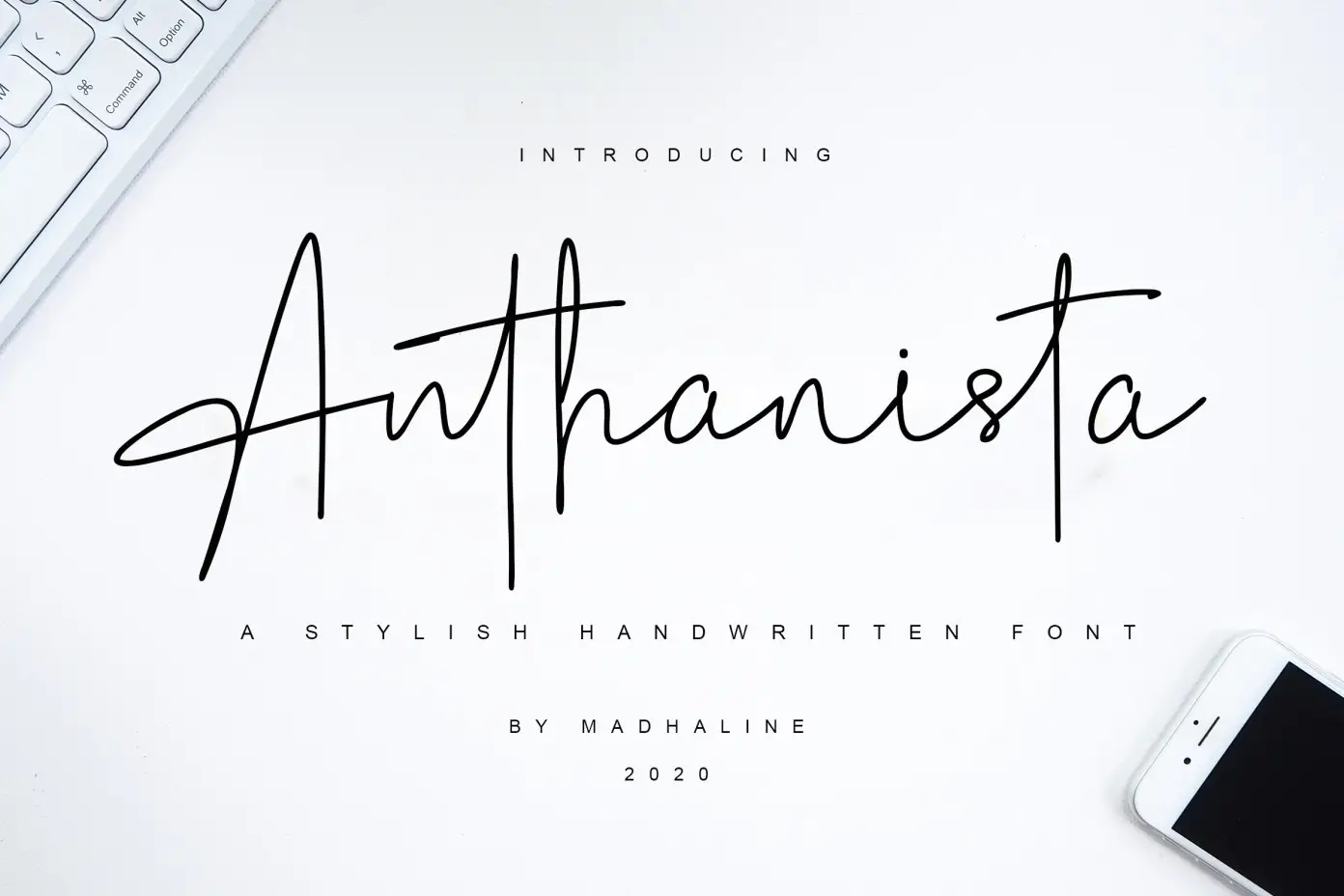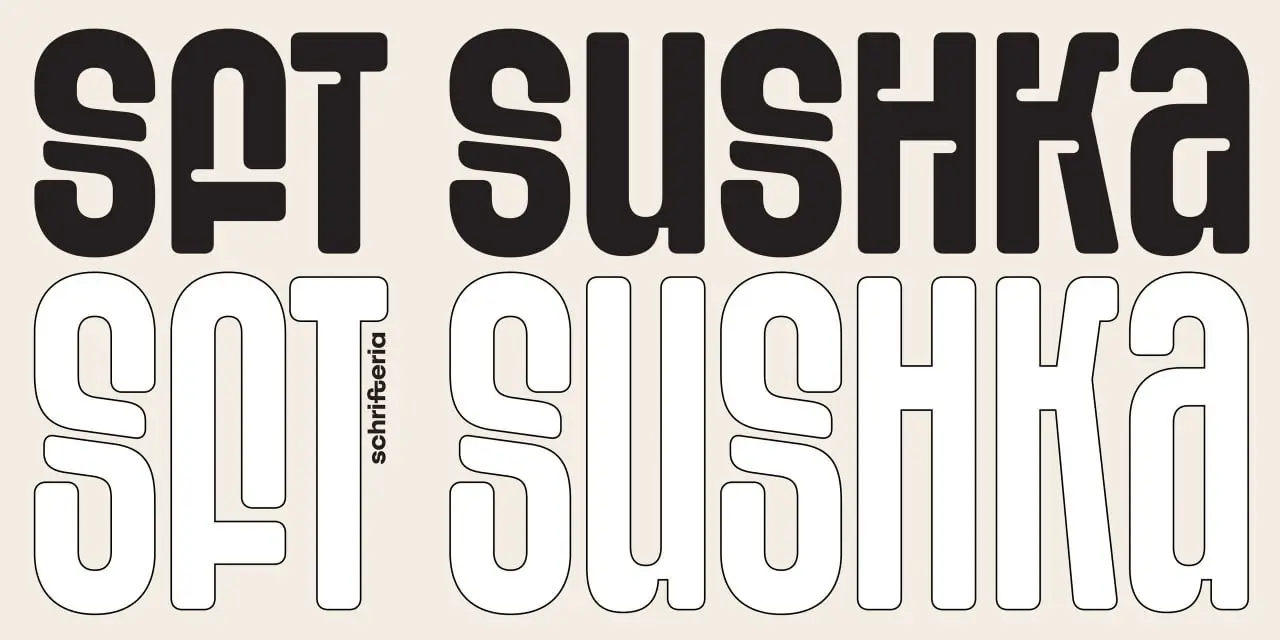
Hey there, creative soul! 👋 Are you ready to level up your design game? We’ve dived deep into the brushespack Collection Part 109 and found 20 absolute gems that will make your next project pop like never before. From elegant scripts to futuristic displays and luxurious serifs, this lineup is pure fuel for your imagination. Let’s jump right in! 🚀🎨
Top 20 Picks from Part 109
Aliresi
Aliresi is a versatile design asset that breathes life into branding, marketing, and digital content. High-res and endlessly customizable — this one’s a game-changer for any artist’s toolkit! ✨🎯
Almondwild Script Font
With flowing curves and pure elegance, Almondwild is the script font of your dreams. Multiple weights and multilingual support make it a versatile stunner for invitations and branding alike! 🌸🖋️
Alivia
Modern, unique, and ultra-sharp — Alivia gives your projects a fresh perspective. These high-res elements are a breeze to tweak, making them perfect for any creative adventure! 🚀🌈
Adelya
Adelya is a versatile digital asset with modern flair and crystal-clear resolution. Perfect for web, print, and anything in between — your next masterpiece starts here! 💎🎨
Abpars – Futuristic Font 2Y5Kx3F
Step into the future with Abpars! This bold, tech-inspired typeface is stylish, modern, and comes with multiple weights — perfect for logos, headlines, and sci-fi vibes! 🤖⚡
Agatha Calligraphy Font
Elegance personified! Agatha’s flowing curves and intricate details make it a star for wedding invites, luxury branding, and sophisticated designs. Multiple weights? Yes please! 🌹🖌️
Anthanista Handwritten Font
Want a personal, human touch? Anthanista delivers natural flow and beautiful curves that feel like real handwriting. Ideal for branding, quotes, and heartfelt projects! ✍️💖
Angry Display Font
Bold, expressive, and impossible to ignore — Angry is a display powerhouse made for headlines and logos that demand attention. Let your work roar! 🔥💥
Amonos Display Font
Make your projects stand out with Amonos! This striking display font is bold, readable at any size, and perfect for branding, web design, and print materials. A true all-rounder! 🏆📢
Aqala Display Font
Aqala is where elegance meets boldness. With its unique character shapes and modern aesthetic, it’s a fantastic choice for headlines, branding, and promotions that need flair! 🎭✨
Albrighton Script Font
Sophisticated cursive at its finest! Albrighton Script oozes elegance and comes with multilingual support and multiple weights — a must-have for any designer’s font library. 🖋️🌿
Aquawave Ripple Handwriting
Fluid, natural, and oh-so-beautiful — Aquawave Ripple mimics real ink on paper. It’s perfect for adding a personal, artistic vibe to digital or print projects. 🌊💫
Sft Sushka Font Cyrillic Free Trial By Yulia Gonina
Love Cyrillic typography? This free trial from Yulia Gonina is modern, clean, and versatile. Available in OTF and TTF — give it a spin and watch your designs shine! 🇷🇺✨
Cethik Display Typeface By © I Made Astawa Alit Design
Striking and modern! Cethik is a bold display typeface crafted for impactful branding, logos, and web content. Its unique shapes will make your work truly unforgettable. 🎯🔥
Vunira-Faulime Modern Display Font
Elegance meets modernity in Vunira-Faulime! This striking display font comes in Regular and Bold weights — perfect for logos, web design, and print that demands sophistication. 🖤✨
Munderic Godas-Death Metal Font By Ronny Studio
Channel the raw energy of metal! Munderic Godas features aggressive, hand-crafted letterforms that are perfect for album covers, merch, and anything that needs an edge. 🤘🎸
Syne Font Family By Bonjour Monde
Clean, contemporary, and incredibly versatile — the Syne Font Family is a modern classic. Ideal for branding, user interfaces, and web design where readability meets style! 📱💎
Storytype Studio-Castle Begale Luxury Serif Font
Luxury has a name — Castle Begale! This elegant serif font features classic proportions and multiple weights, making it a top choice for high-end branding and editorial design. 👑🖊️
Street Euban Font By Misha Vlasov
Modern, clean, and packed with personality — Street Euban is perfect for adding a unique touch to any project. Multiple weights and special characters give you tons of flexibility! 🏙️✨
Tt Ricordi Marmo By Eugene Tantsurin, Yulia Gonina, Yuriy Nako, Ivan Gladkikh
Inspired by marble textures, Tt Ricordi Marmo is a stunning serif typeface with an elegant, rich character set. Multiple weights and a luxurious feel make it a standout for high-end projects. 🏛️🪨